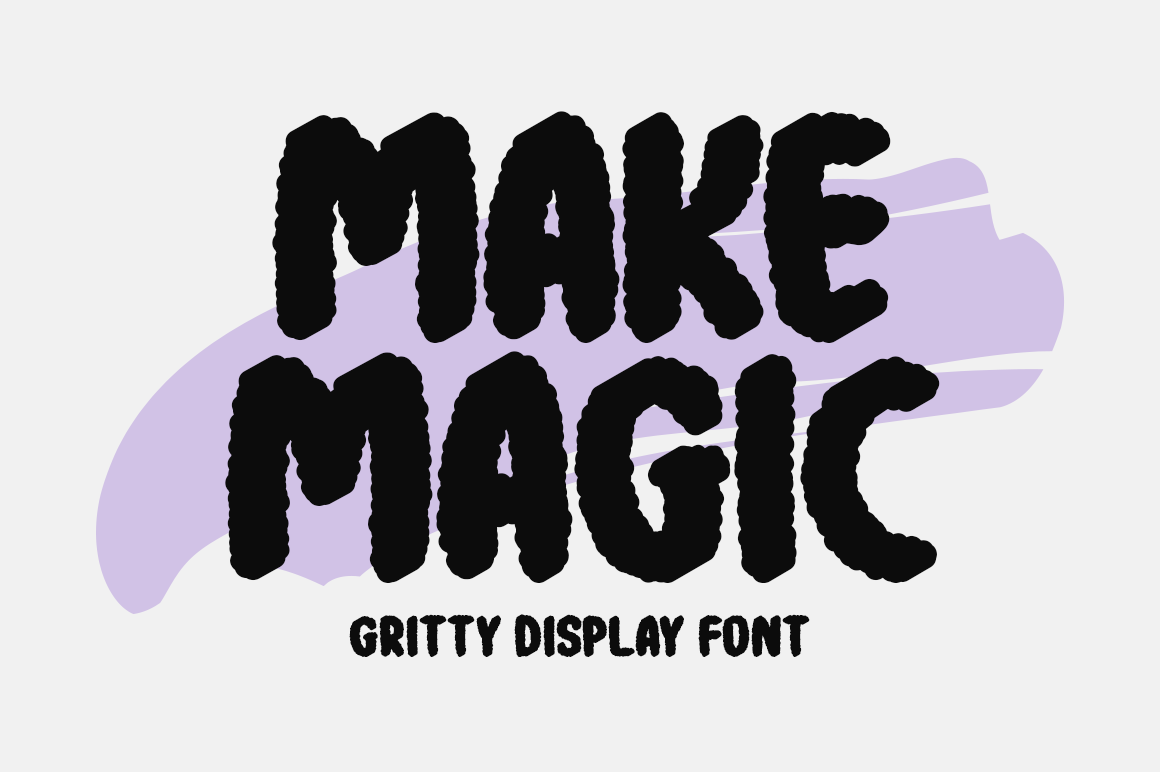
Make Magic Typeface
Introducing Make Magic!
Make Magic is a display font ideal for various imaginative applications because of its rough, powerful character. Whether you are designing print materials, stationery, logos, t-shirts, or other items, its bold and unique style gives your designs a powerful impact. This adaptable font fits well for website headers and picture sliders, flyers, photo frames, music covers, and posters. Make Magic guarantees your creations will grab the viewer’s interest and exude audacious artistry.